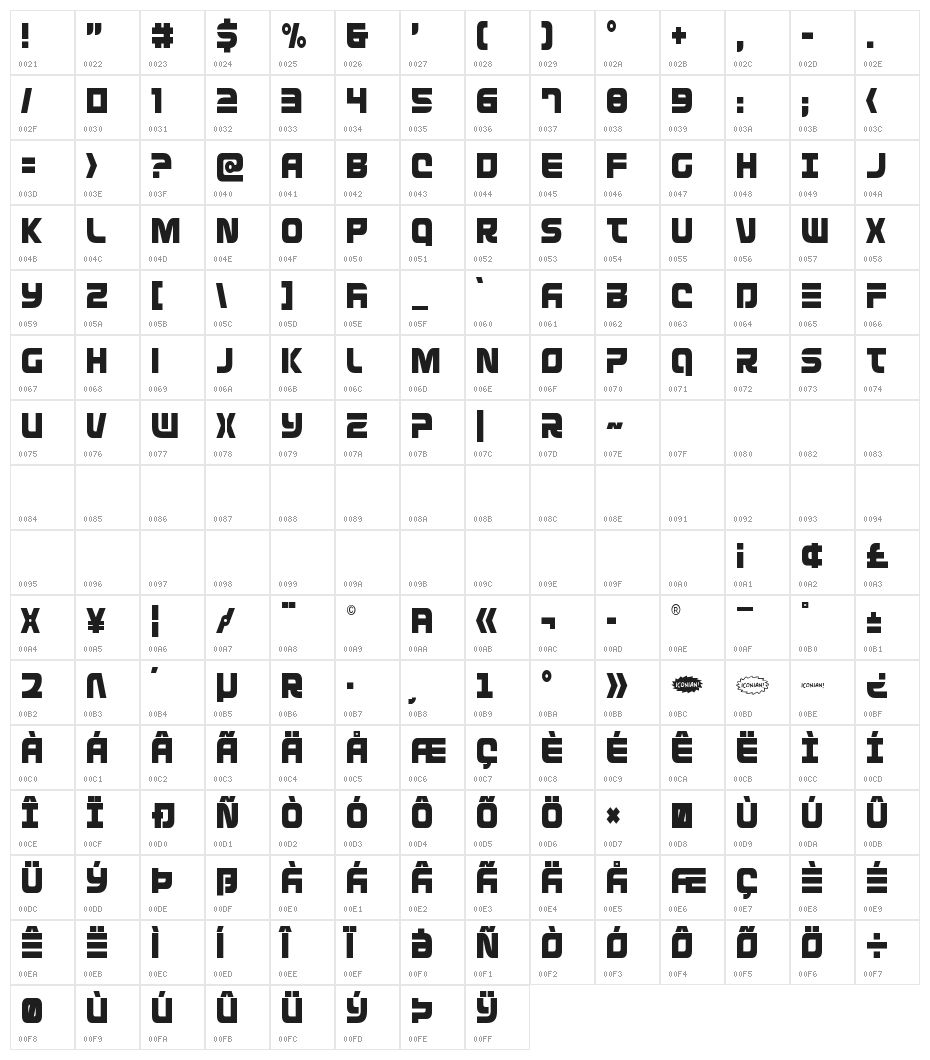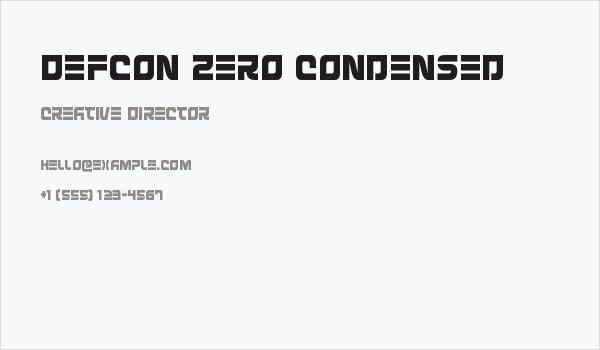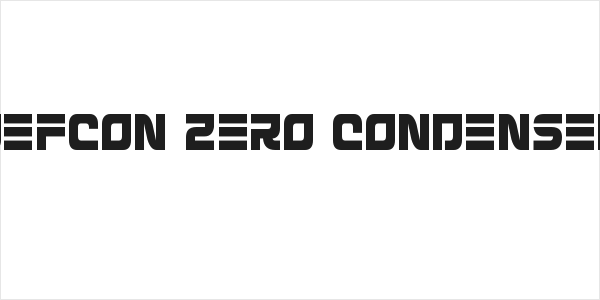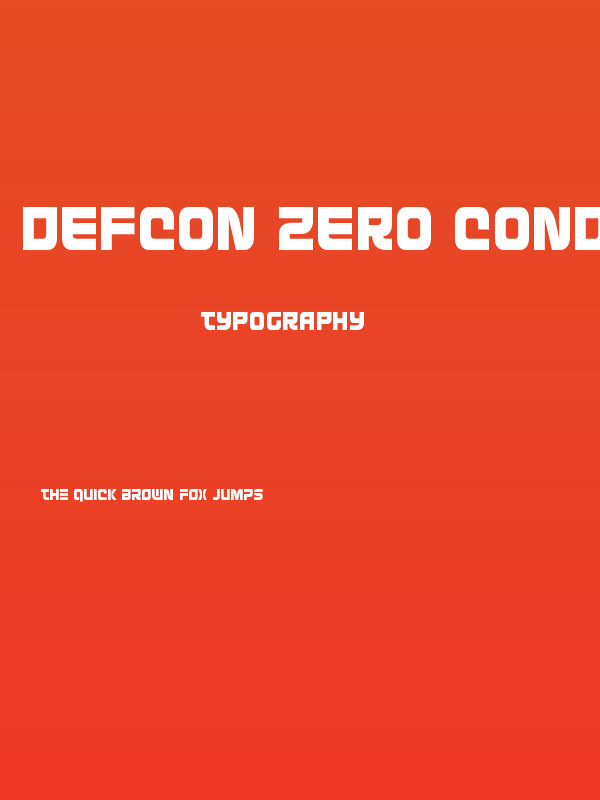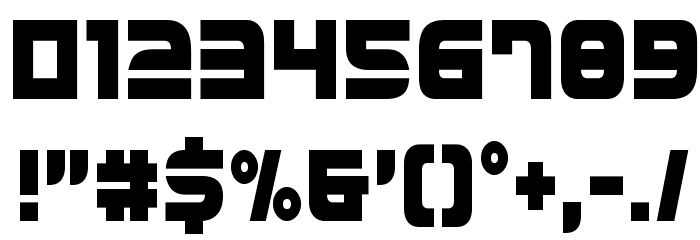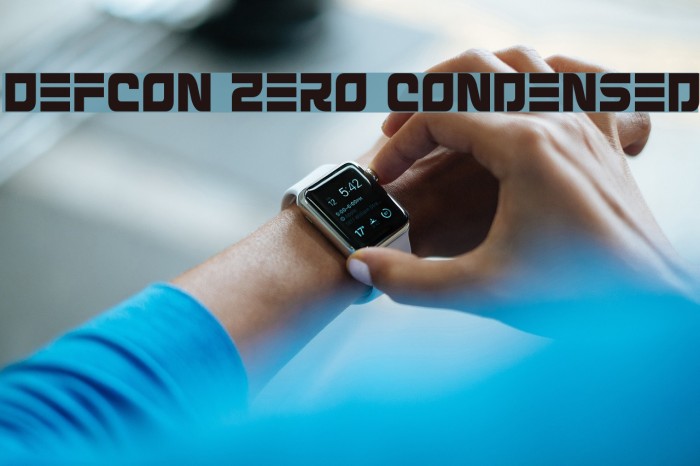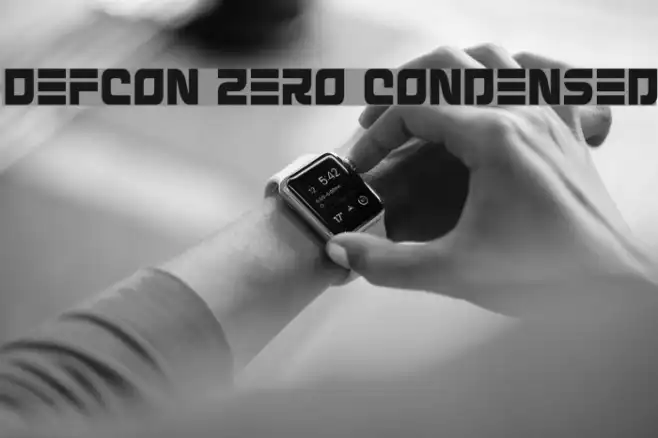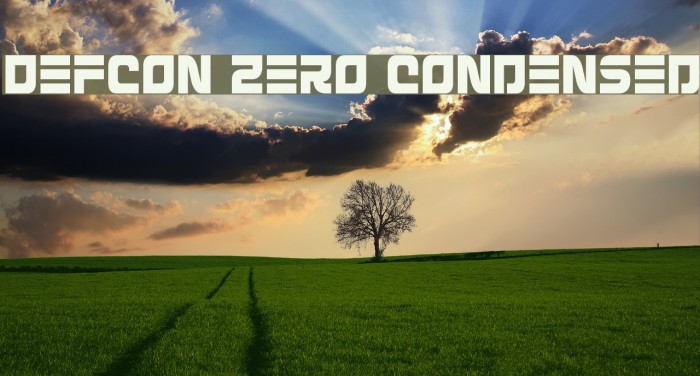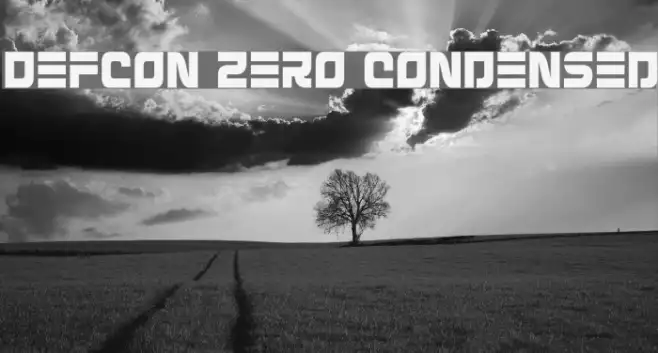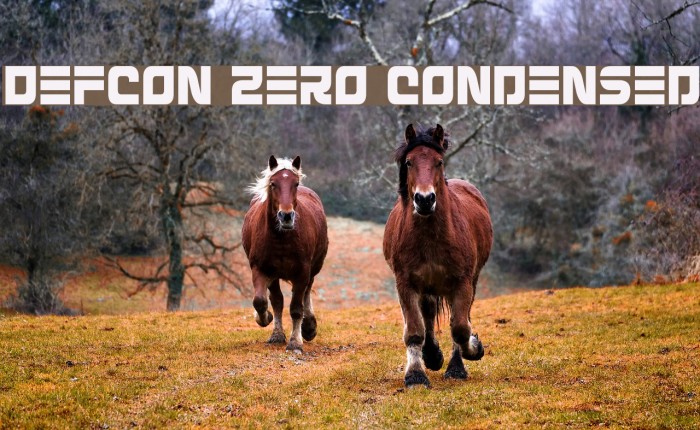
Defcon Zero Condensed Font
Defcon Zero Condensed Description
This font features a bold, futuristic design with a strong geometric influence. The characters are condensed, giving a compact and efficient appearance. The uppercase letters are particularly striking, with sharp angles and a consistent stroke width that conveys a sense of strength and modernity. The numerals and special characters maintain this bold aesthetic, ensuring uniformity across all glyphs. The overall style is highly suitable for projects that require a modern and impactful visual presence.